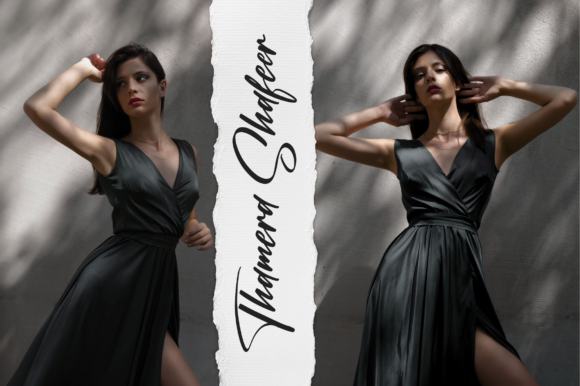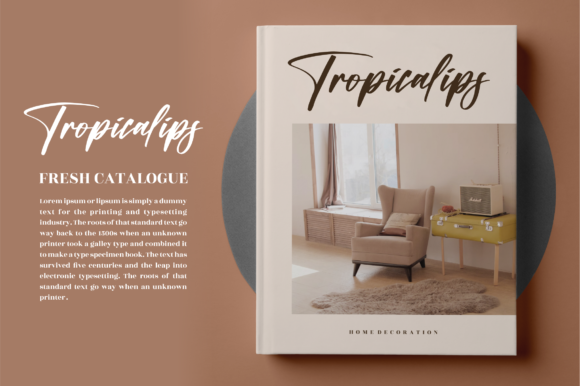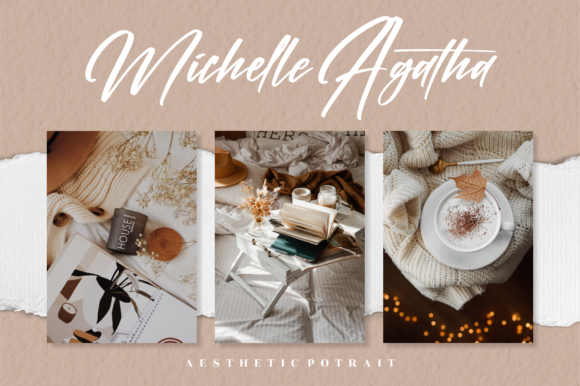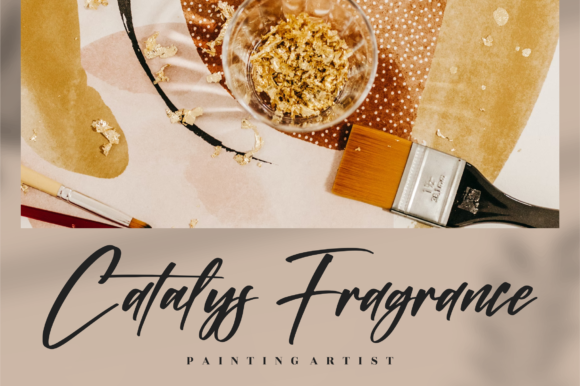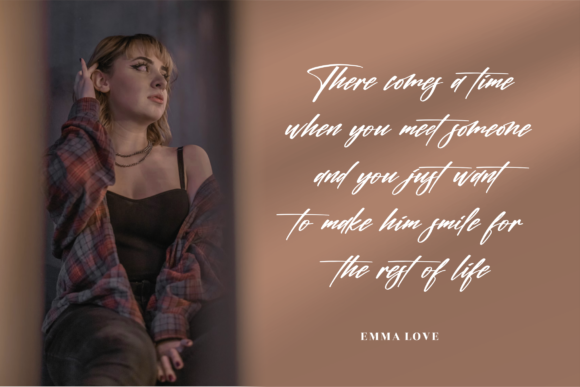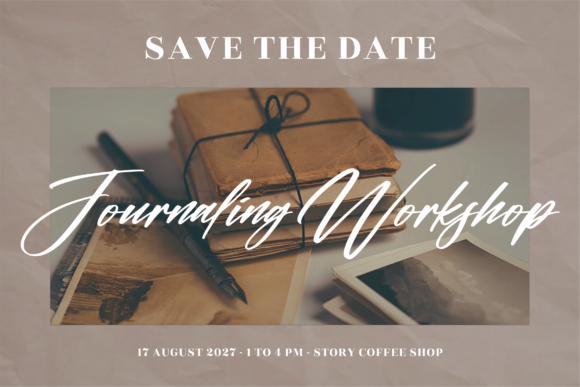
Cantika Foster Font: Elevate Your Designs with Elegance and Sophistication
Are you a designer or crafter looking for a font that exudes elegance and sophistication? Look no further than the stunning Cantika Foster Font. This beautiful script font is sure to captivate your audience with its distinct and graceful style, making it perfect for a wide range of design projects.
The Beauty of Cantika Foster Font
Cantika Foster Font is a masterpiece of typography, boasting a unique and ravishing style that is sure to leave a lasting impression. Its elegant and flowing lines make it perfect for designs that require a touch of sophistication and glamour. Whether you’re working on a branding project, creating wedding invitations, or designing social media graphics, Cantika Foster Font is the perfect choice.
One of the standout features of Cantika Foster Font is its PUA (Private Use Area) encoding. This means that you can access all glyphs and swashes with ease, giving you complete creative control over your designs. With PUA encoding, you can effortlessly navigate the font’s extensive character set, including alternates, ligatures, and swashes, to create truly unique and stunning designs.
Cantika Foster Font offers endless design possibilities, making it a versatile addition to any designer’s toolkit. Here are just a few ideas to get you started:
- Wedding Invitations: Create beautiful and elegant wedding invitations that set the tone for a special day.
- Branding: Use Cantika Foster Font to create a sophisticated brand identity that exudes luxury and refinement.
- Social Media Graphics: Add a touch of elegance to your social media graphics, including Facebook posts, Instagram stories, and Twitter headers.
- Stationery: Design stunning stationery, including letterheads, business cards, and thank-you cards.
Why Choose Cantika Foster Font?
With so many fonts available, why choose Cantika Foster Font? Here are just a few reasons:
- Unique Style: Cantika Foster Font boasts a distinct and graceful style that sets it apart from other fonts.
- Ease of Use: With PUA encoding, accessing glyphs and swashes is easy, making it simple to create stunning designs.
- Versatility: Cantika Foster Font can be used for a wide range of design projects, from wedding invitations to branding and social media graphics.
- Elegance: This font exudes elegance and sophistication, making it perfect for designs that require a touch of luxury and refinement.
Tips for Using Cantika Foster Font
To get the most out of Cantika Foster Font, here are a few tips:
- Experiment with Swashes: Take advantage of the font’s extensive swash collection to add a touch of elegance to your designs.
- Mix and Match: Combine Cantika Foster Font with other fonts to create a unique and visually appealing design.
- Pay Attention to Kerning: Make sure to adjust the kerning to ensure that your text is evenly spaced and visually appealing.
Cantika Foster Font is a stunning script font that is sure to elevate your designs with its elegance and sophistication. With its PUA encoding, ease of use, and versatility, this font is perfect for designers and crafters looking to create beautiful and unique designs. Whether you’re working on a branding project, creating wedding invitations, or designing social media graphics, Cantika Foster Font is the perfect choice. So why wait? Fall for the ravishing style of Cantika Foster Font and take your designs to the next level.